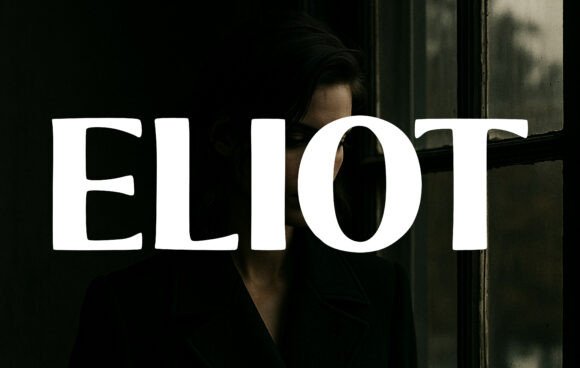
Eliot Font: A Bold Serif Typeface for Editorial Excellence
The world of typography is vast and diverse, with numerous typefaces designed to cater to various design needs. Among these, the Eliot font stands out for its unique blend of elegance and assertiveness. This bold serif typeface is crafted to make a statement, offering a perfect balance of classic sophistication and modern flair. In this article, we will delve into the distinctive features of the Eliot font, its design elements, and its applications in various design contexts.
Distinctive Features of Eliot Font
The Eliot font is characterized by its dramatically flared serifs, high contrast strokes, and subtly curved terminals. These features come together to create a soft yet impactful silhouette that sets it apart from other typefaces. The letterforms are slightly condensed, giving the font a confident stance and fluid rhythm. This makes Eliot perfect for editorial headlines, branding, fashion, and luxury design applications.
Design Elements of Eliot Font
The design of the Eliot font is rooted in its bold serif structure. The serifs are flared, adding a touch of elegance to the overall appearance of the typeface. The high contrast between the thick and thin strokes creates a sense of dynamism, making the font perfect for display settings. The subtly curved terminals add a softness to the font, preventing it from looking too harsh or aggressive.
The letterforms of Eliot are carefully crafted to ensure clarity and readability. The font has a slightly condensed structure, which gives it a confident and assertive stance. The fluid rhythm of the font makes it easy to read, even in large blocks of text.
Applications of Eliot Font
The Eliot font is versatile and can be used in various design contexts. Its bold and elegant appearance makes it perfect for:
- Editorial headlines: Eliot’s confident stance and fluid rhythm make it ideal for use in editorial headlines, such as those found in magazines, newspapers, and online publications.
- Branding: The font’s unique blend of elegance and assertiveness makes it suitable for branding applications, such as logos, packaging, and advertising materials.
- Fashion and luxury design: Eliot’s sophisticated and refined appearance makes it a popular choice for fashion and luxury design applications, such as fashion magazines, luxury brands, and high-end product packaging.
Timeless Quality of Eliot Font
The Eliot font has a timeless quality that sets it apart from other typefaces. Its sculptural details and classic serif structure give it a sense of sophistication and elegance that never goes out of style. The font’s bold and assertive appearance ensures that it demands attention, while its refined and elegant features evoke trust and credibility.
The timeless quality of Eliot makes it a valuable asset for designers, as it can be used in a wide range of design applications, from editorial and branding to fashion and luxury design.
Why Choose Eliot Font?
There are several reasons why designers might choose Eliot font for their projects:
- Unique appearance: Eliot’s distinctive features, such as its flared serifs and high contrast strokes, make it stand out from other typefaces.
- Versatility: The font can be used in a wide range of design applications, from editorial and branding to fashion and luxury design.
- Timeless quality: Eliot’s classic serif structure and sculptural details give it a timeless quality that ensures it remains relevant for years to come.
- Clarity and readability: The font’s carefully crafted letterforms ensure clarity and readability, making it perfect for display settings.
In conclusion, the Eliot font is a bold serif typeface that offers a unique blend of elegance and assertiveness. Its distinctive features, such as its flared serifs and high contrast strokes, make it perfect for editorial headlines, branding, fashion, and luxury design applications. The font’s timeless quality, versatility, and clarity make it a valuable asset for designers. Whether you’re looking to make a statement or evoke trust and credibility, Eliot font is an excellent choice.